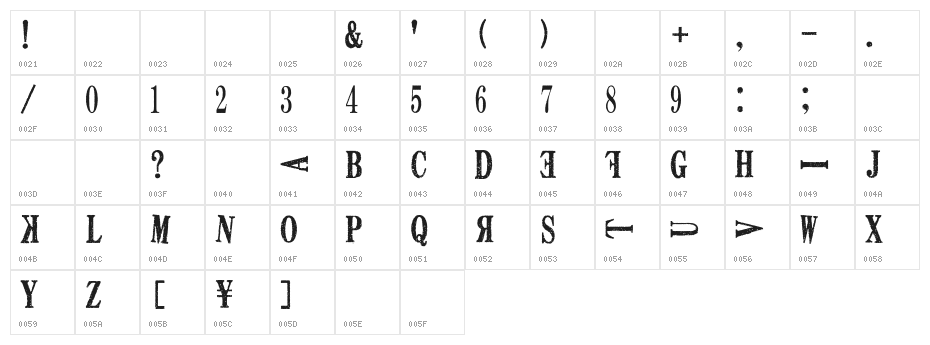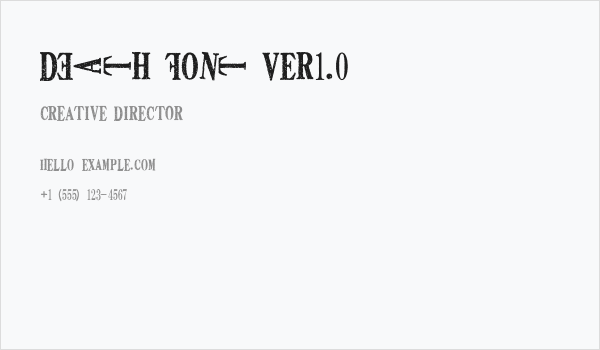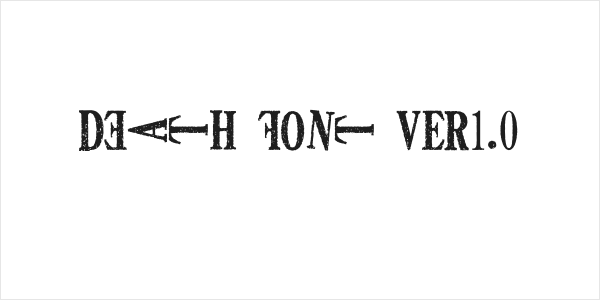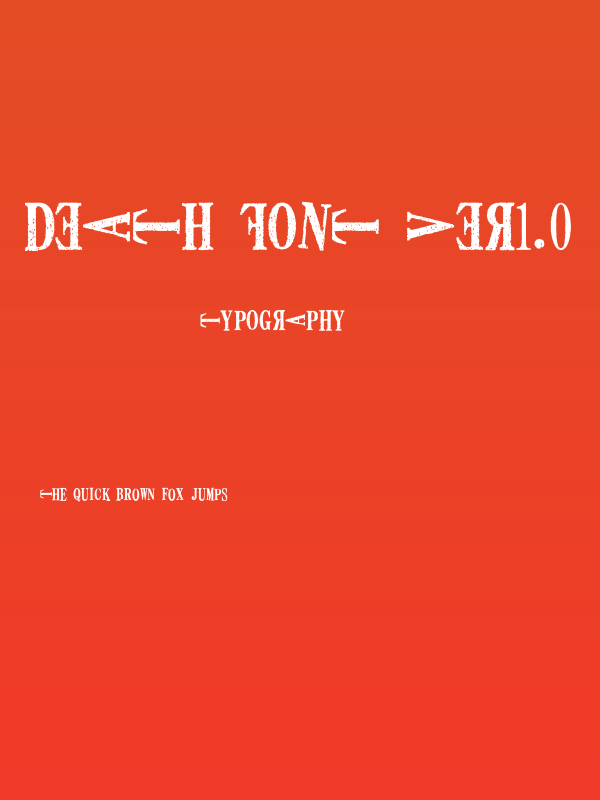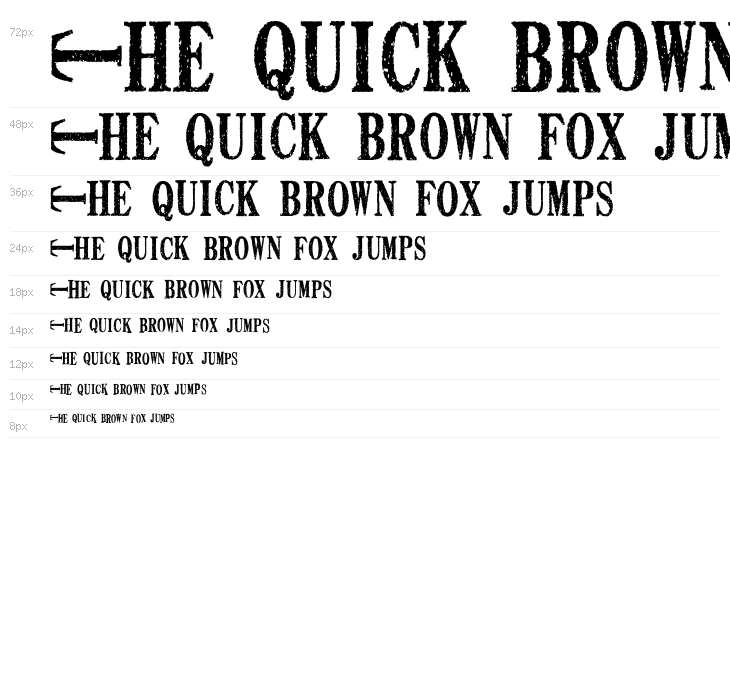
DEATH FONT ver1.0 Font
DEATH FONT ver1.0 Description
This font features a bold and distressed style, reminiscent of vintage typewriter or old newspaper print. The characters are uppercase with a rough, textured appearance, giving them a rugged and worn look. The numbers and special characters maintain this distressed aesthetic, adding to the overall antique feel. The font's boldness and unique texture make it stand out, ideal for projects that require a touch of nostalgia or a gritty, industrial vibe.
| Proposed Projects | Ideal for vintage-themed posters, album covers, branding for retro products, or any design needing a rugged, antique look. |